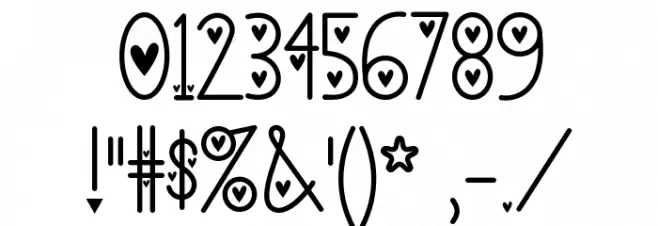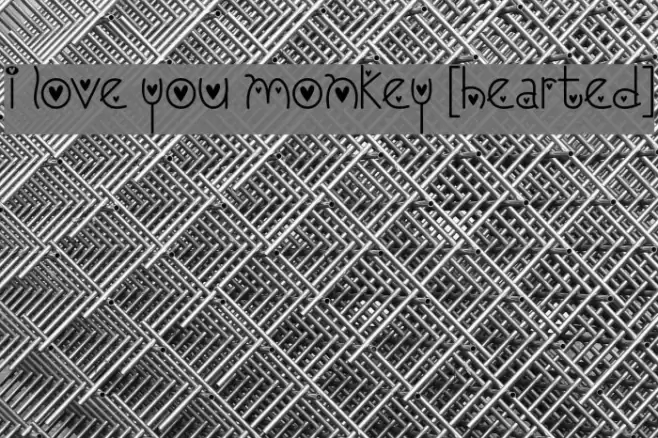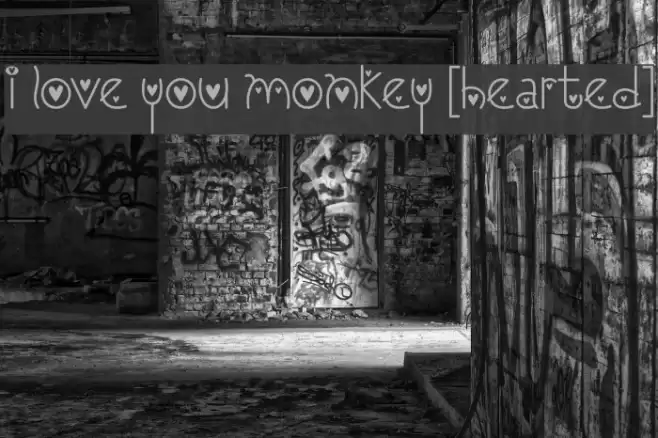
I Love You Monkey [Hearted] Font
I Love You Monkey [Hearted] Description
This playful and whimsical font features heart motifs integrated into the design of each character, creating a charming and romantic feel. The letters are rounded and smooth, with a consistent stroke width that gives a uniform appearance. The heart shapes are cleverly incorporated into the negative spaces of the characters, adding a unique and decorative touch. This font is ideal for projects that require a lighthearted and affectionate tone, such as greeting cards, wedding invitations, or playful branding. Its distinct style makes it stand out, while still maintaining readability.
A playful font with heart motifs, perfect for romantic and whimsical designs from Uncategorized fonts.
- Font: I Love You Monkey [Hearted]
- Proposed Projects: Greeting cards, wedding invitations, playful branding, children's books.
- Overall Style: Whimsical